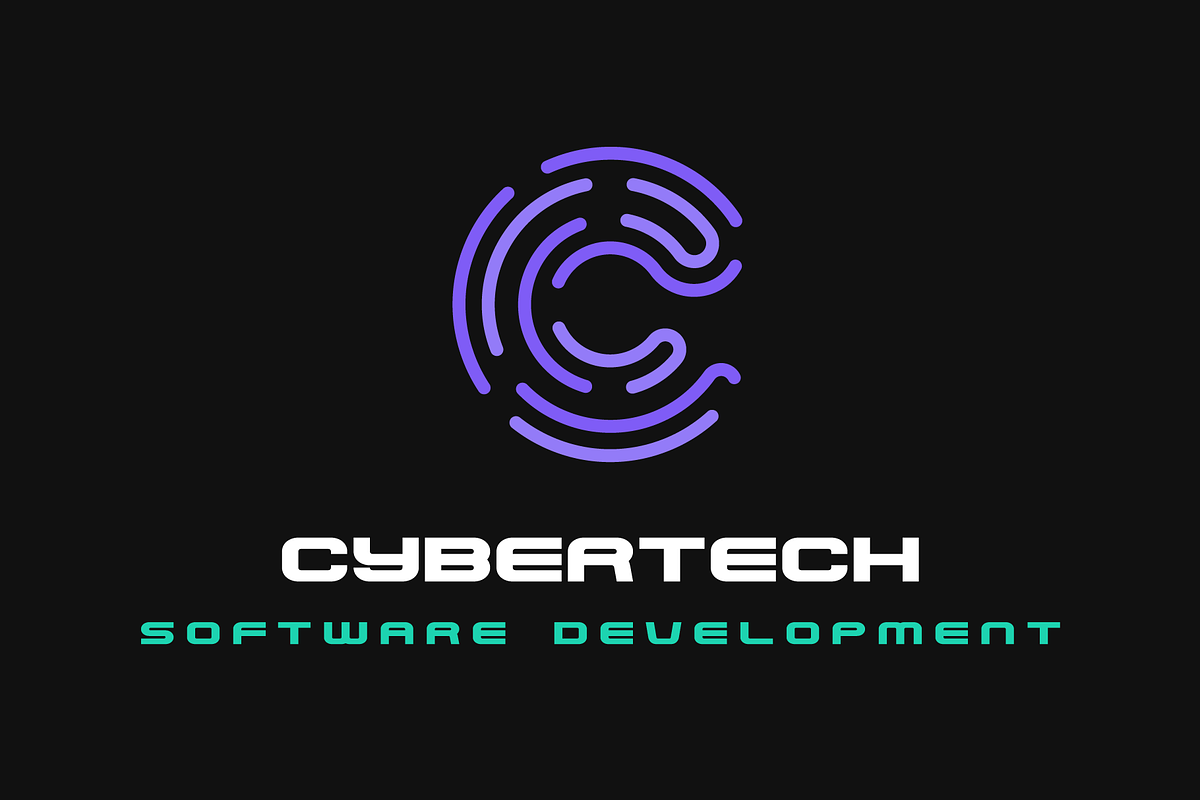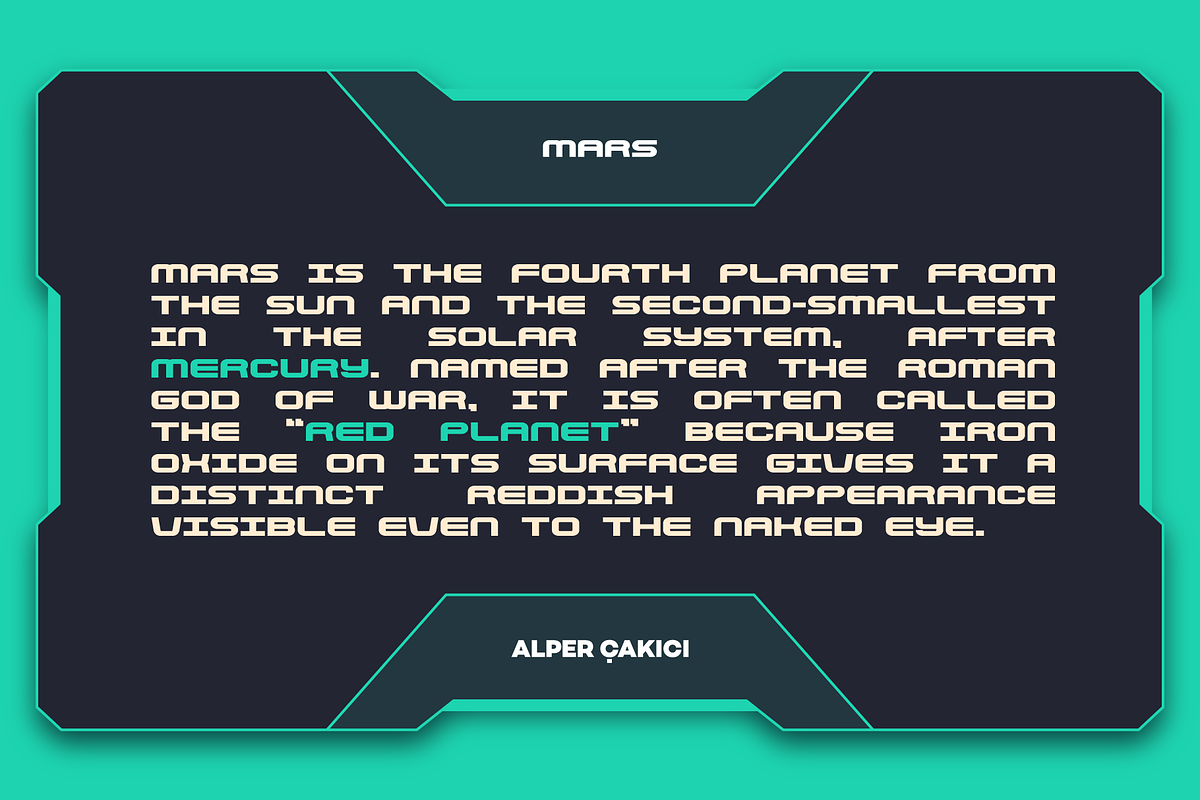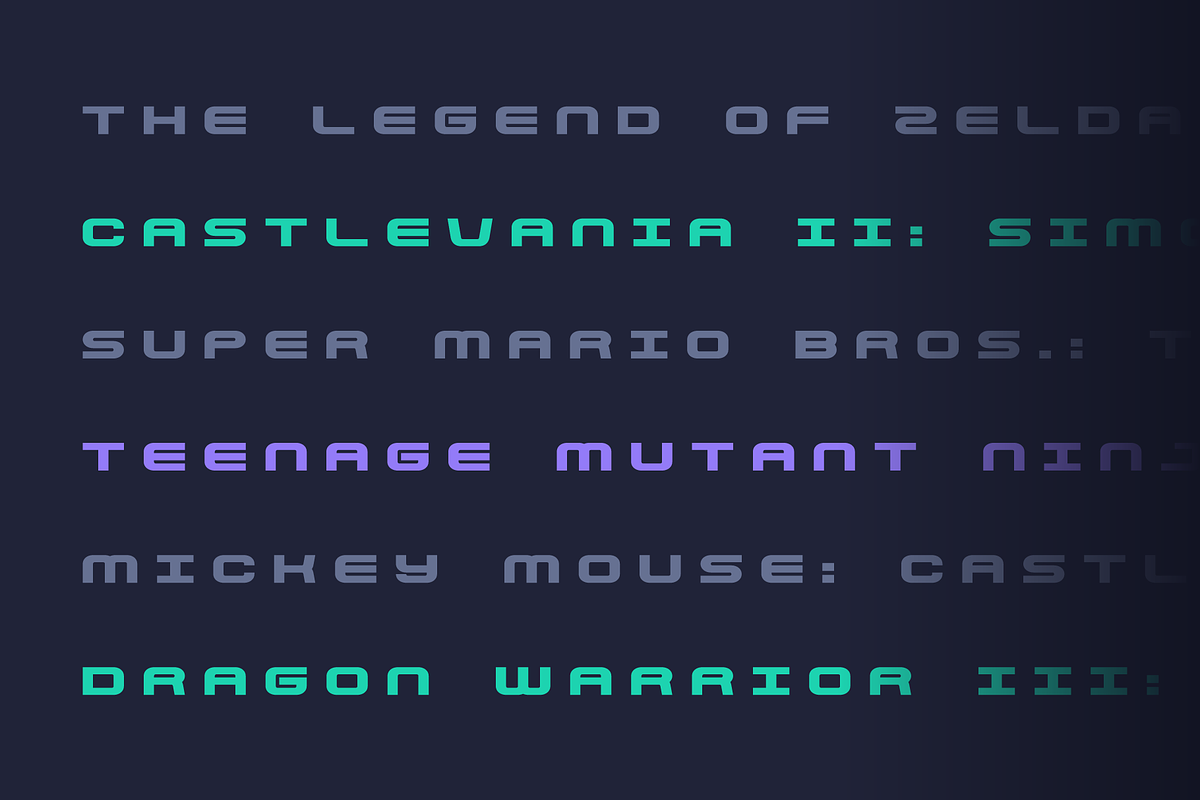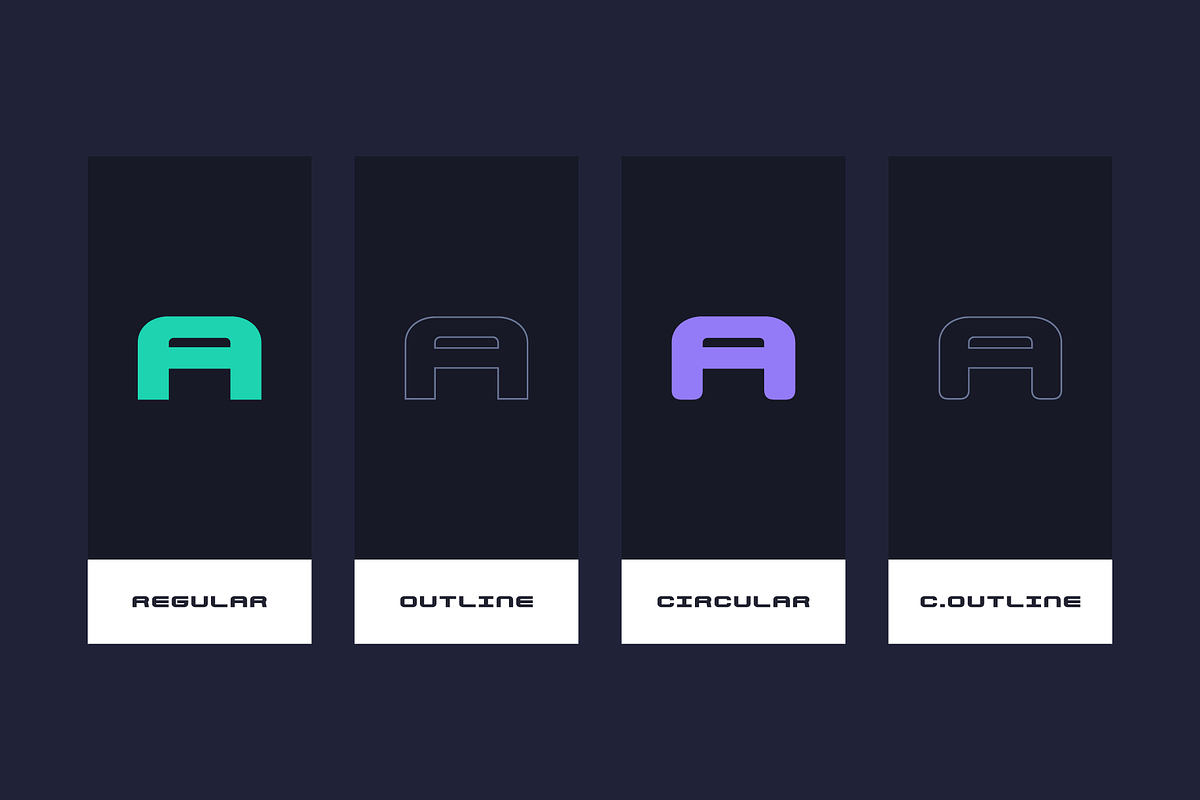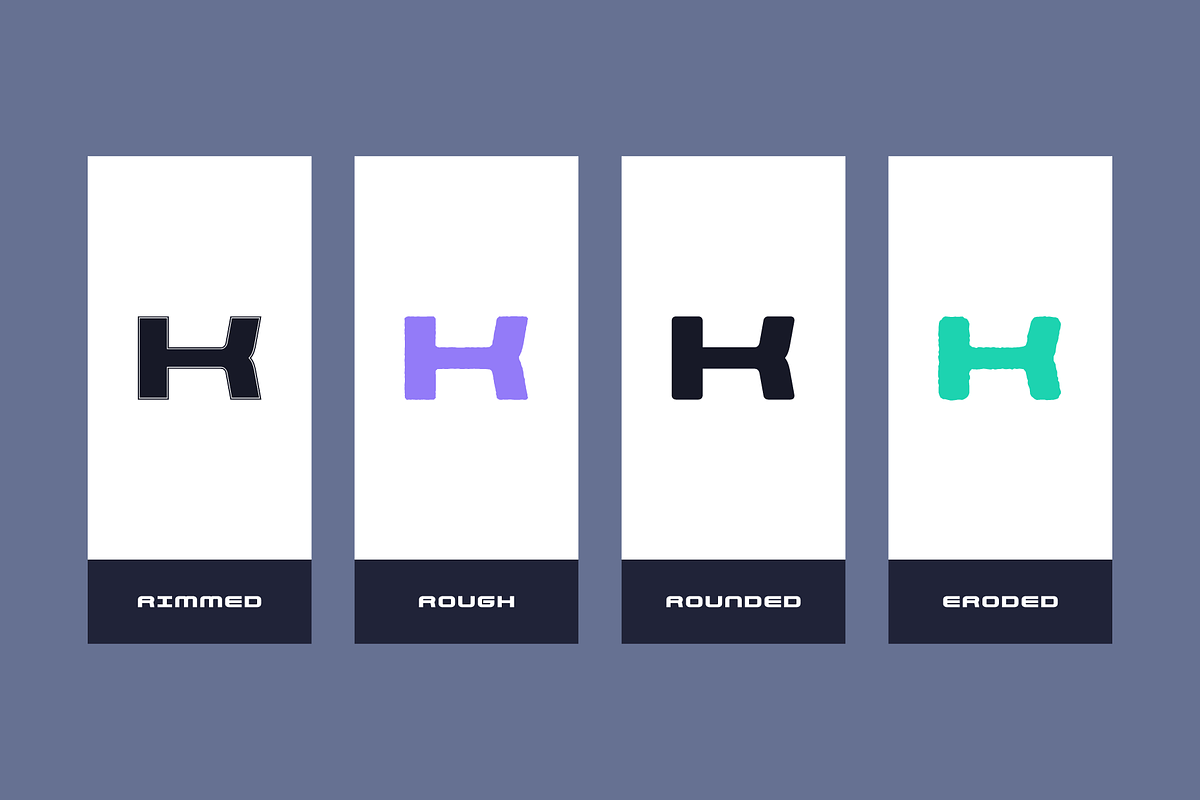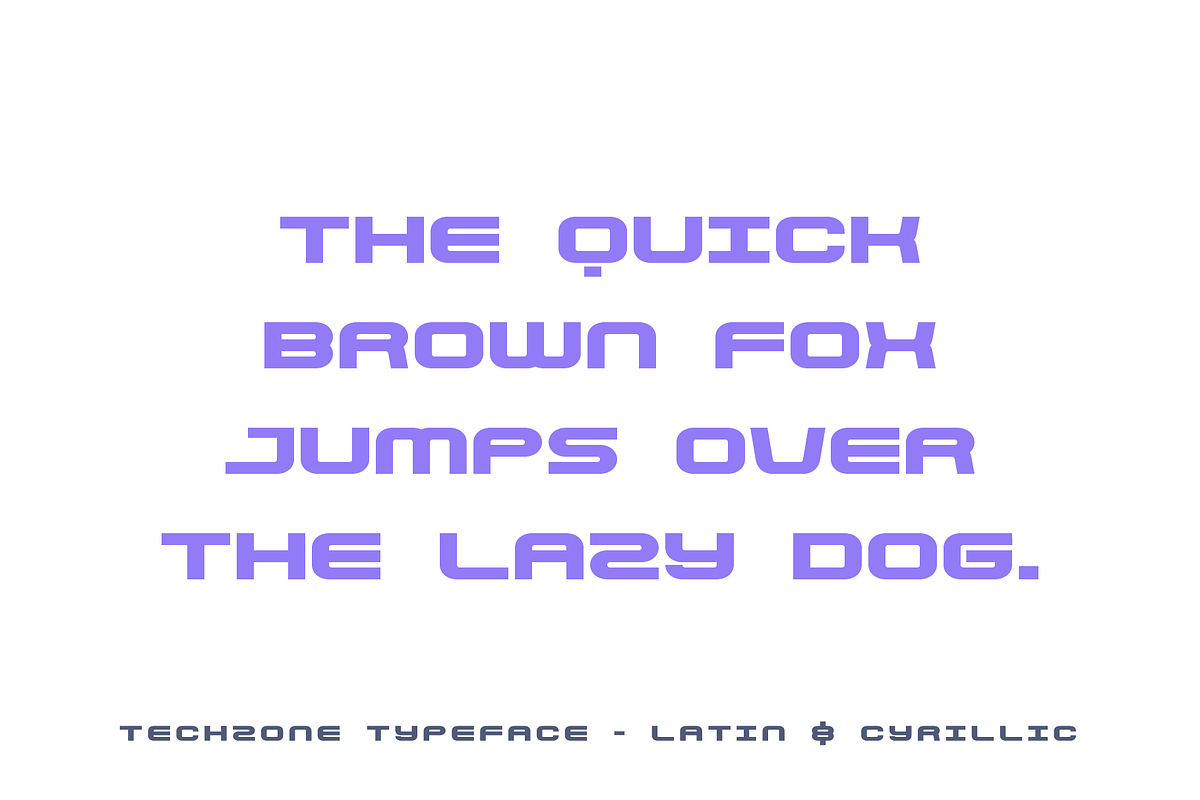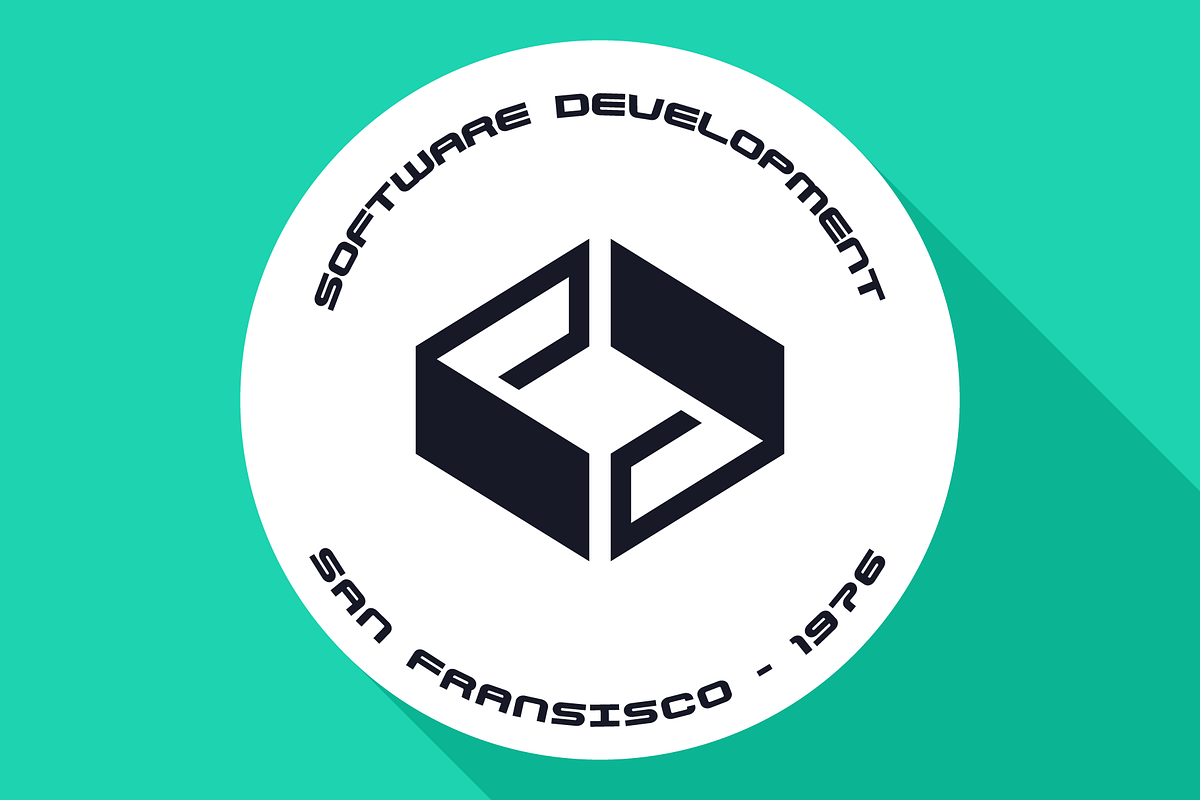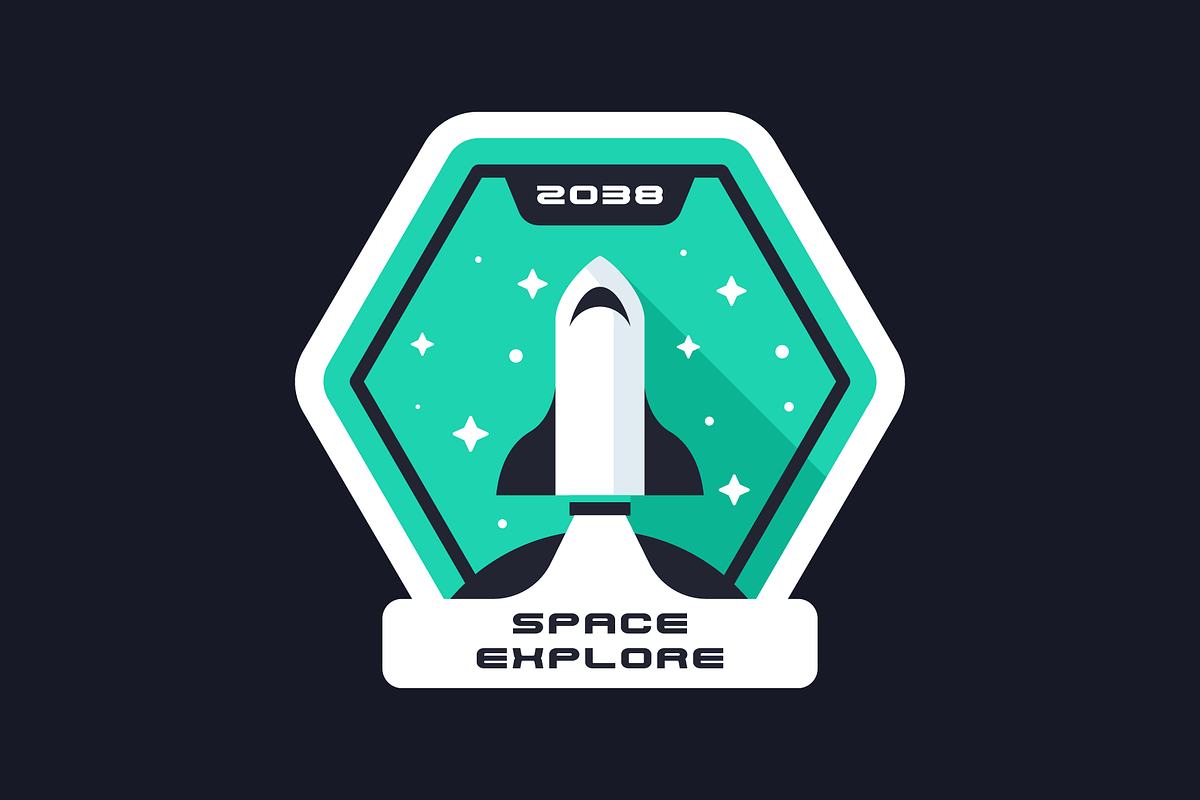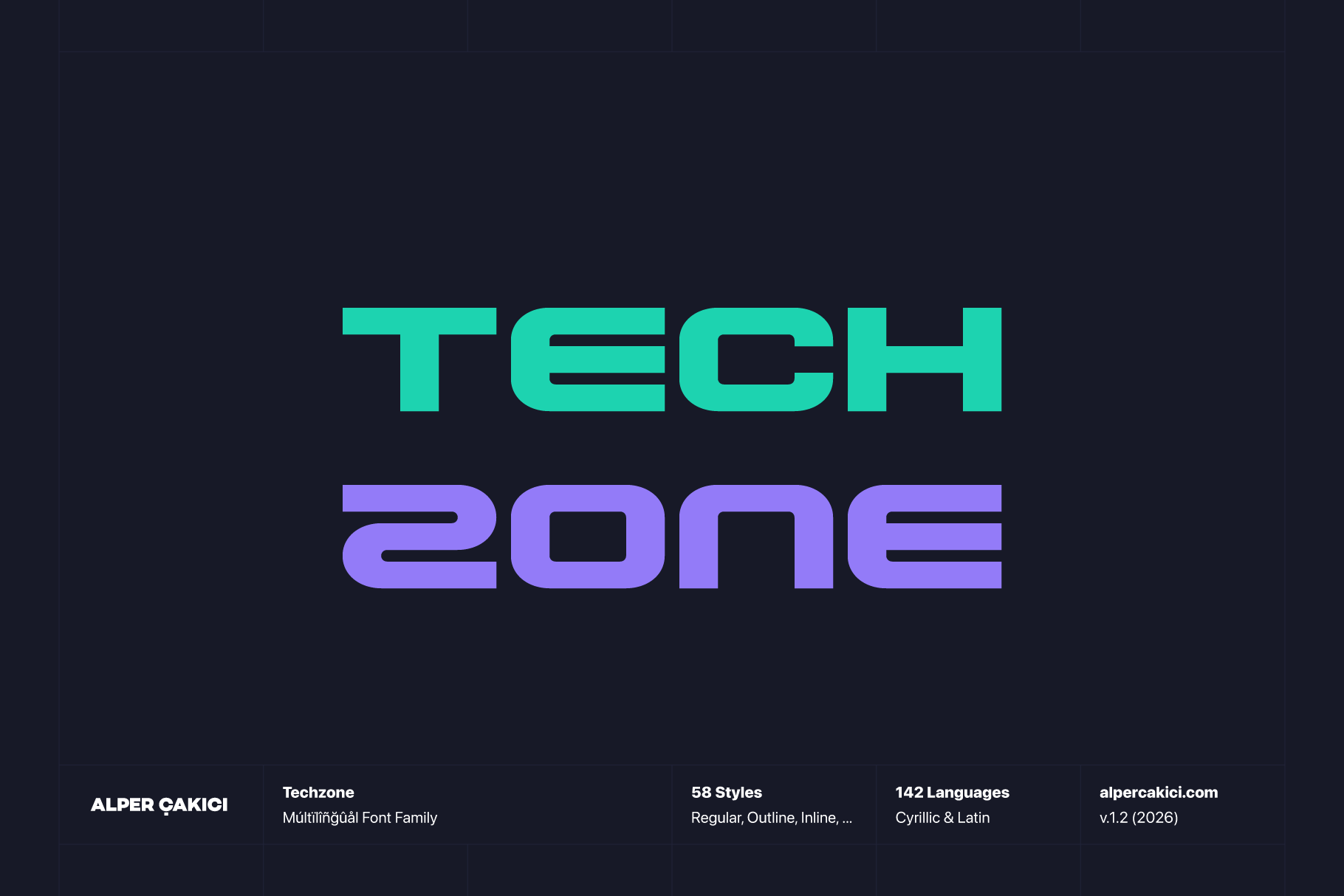
Techzone Cyrillic & Technologic Font
Techzone is a futuristic rounded technology font family built for innovation-driven design. Combining geometric precision with softened curves, it delivers a clean, modern voice that feels both digital and human.
Designed for versatility, Techzone moves effortlessly between tech branding, esports visuals, UI design, packaging, editorial layouts, posters, and logotypes. Its rounded structure keeps the tone approachable, while its angular and experimental variants introduce edge and character when needed.
With an extensive range of styles—from clean Regular and Italic to expressive Brush, Rough, Eroded, Pencil, Outline, Rimmed, Inline, and Noise variants—Techzone gives designers complete creative flexibility. The Circular and Rounded subfamilies expand the system even further, offering refined stylistic directions suitable for both corporate and experimental work.
Techzone supports an impressive range of Latin-based languages, making it ideal for global branding and international communication. Whether you need sharp futuristic impact or softened digital elegance, Techzone adapts seamlessly.
- Technology and startup branding
- Gaming and esports App and UI design
- Sci-fi and cyber visuals
- Posters and display typography
- Packaging and product design
Techzone is more than a typeface — it’s a complete futuristic system built for forward-thinking design.